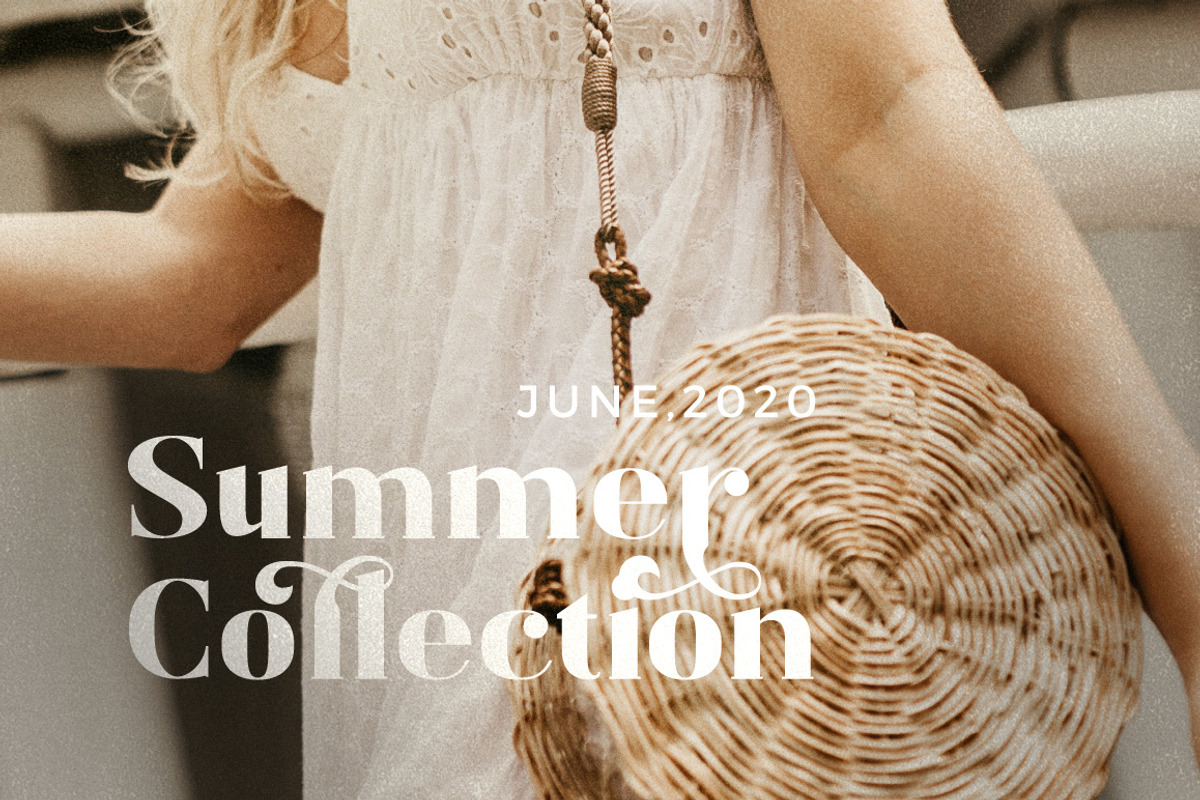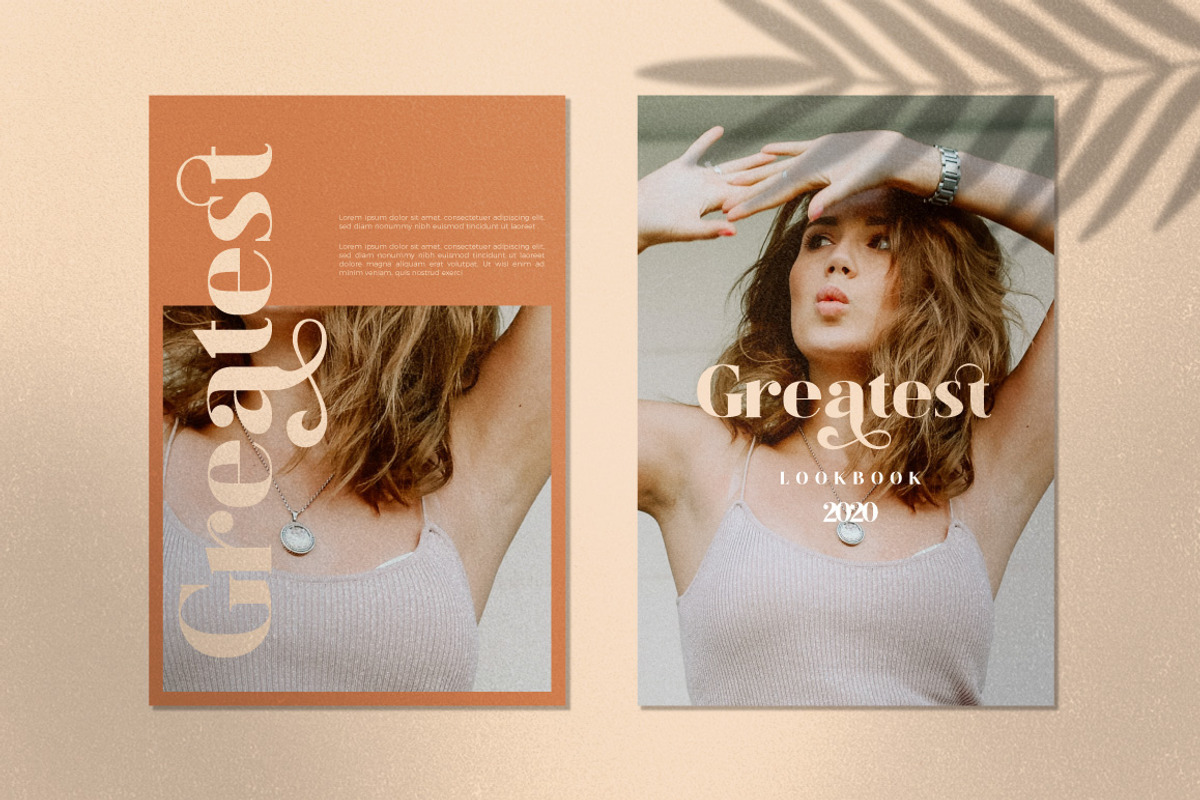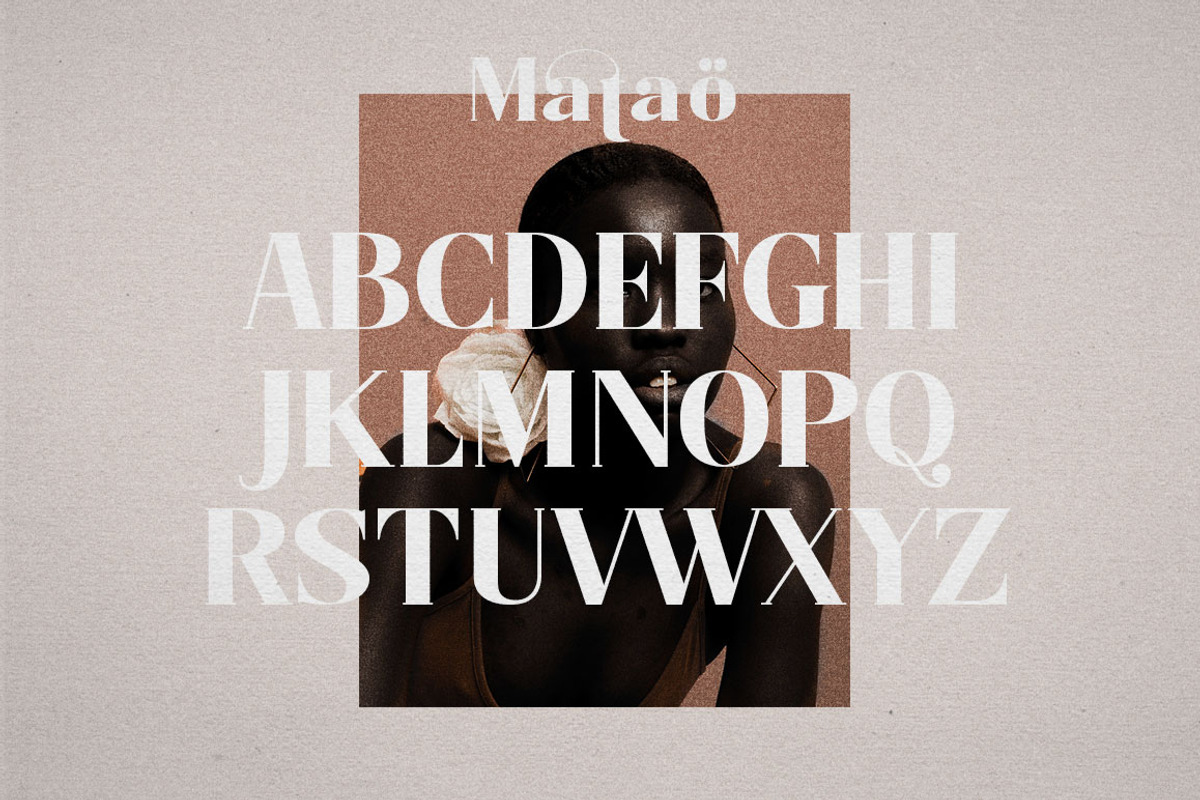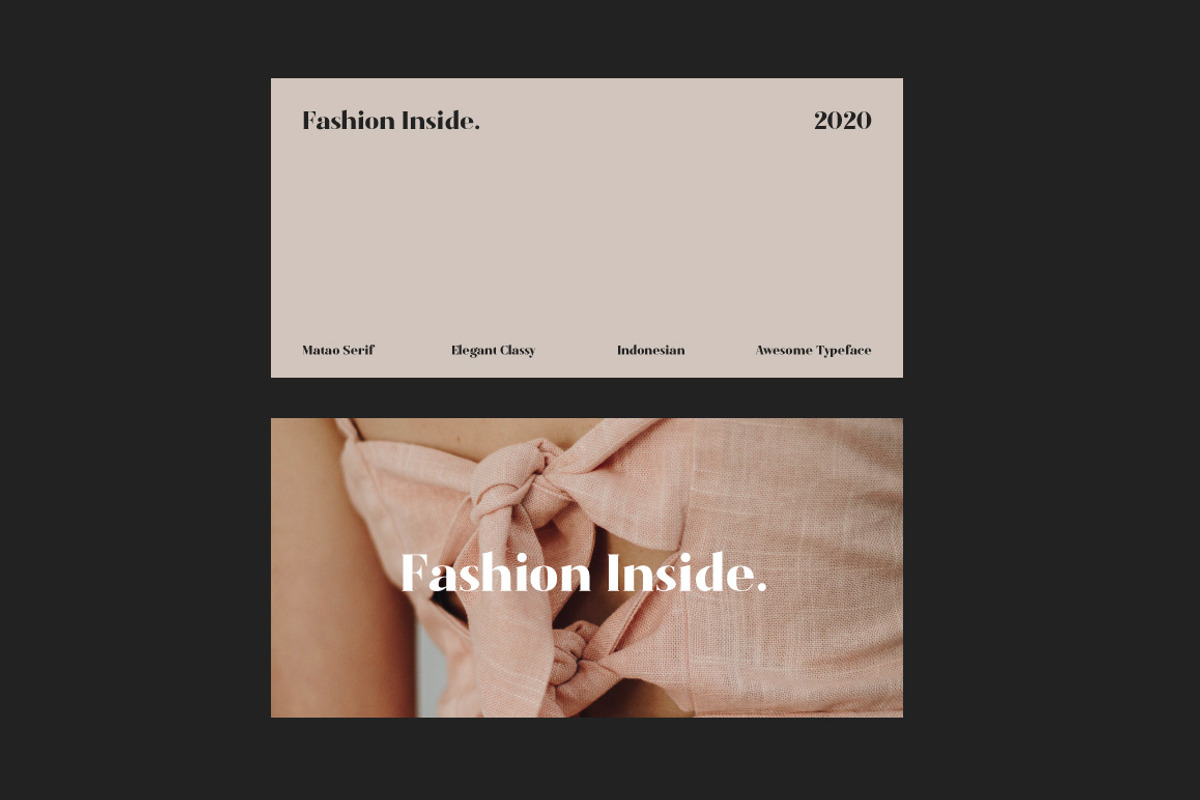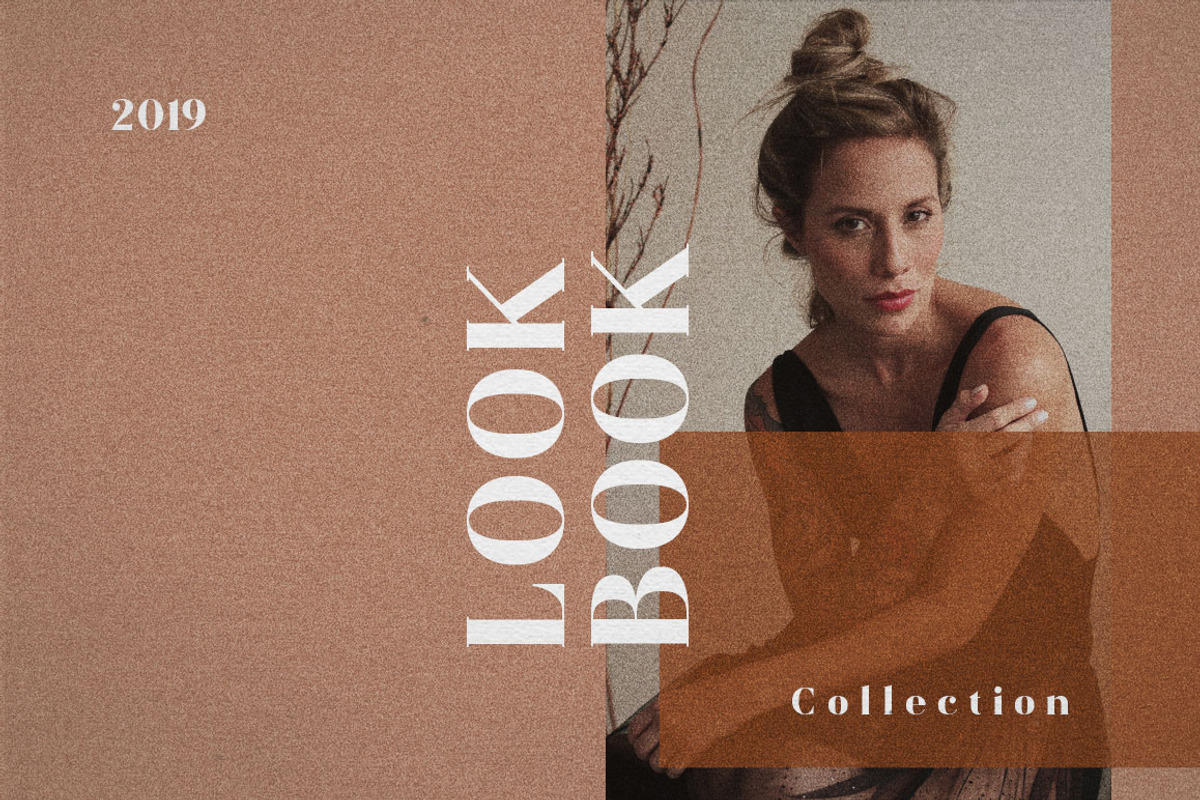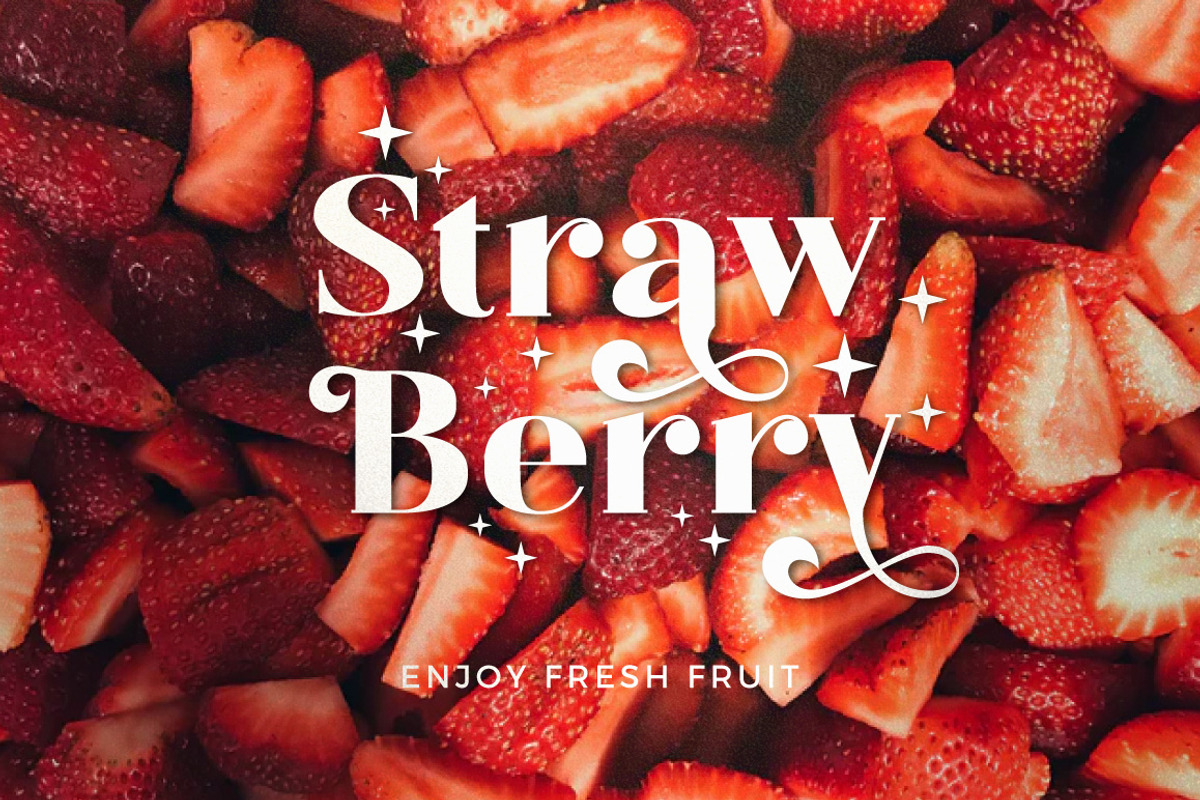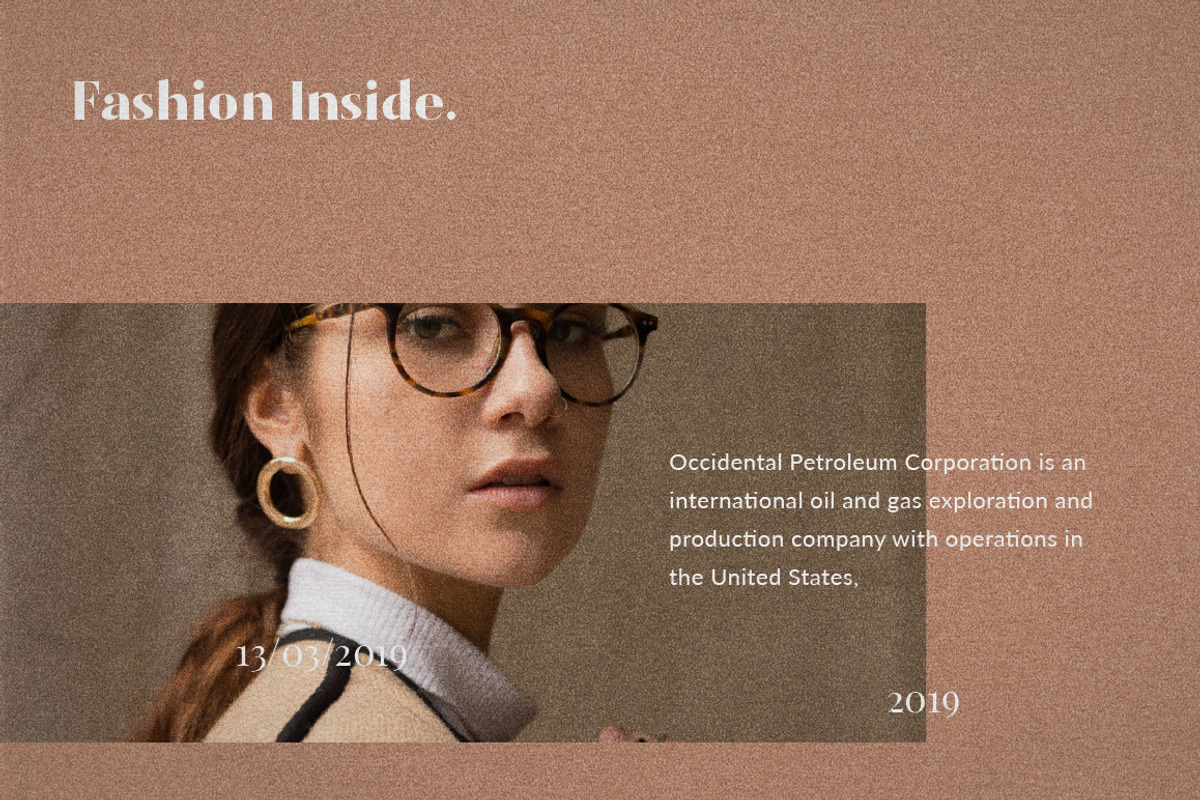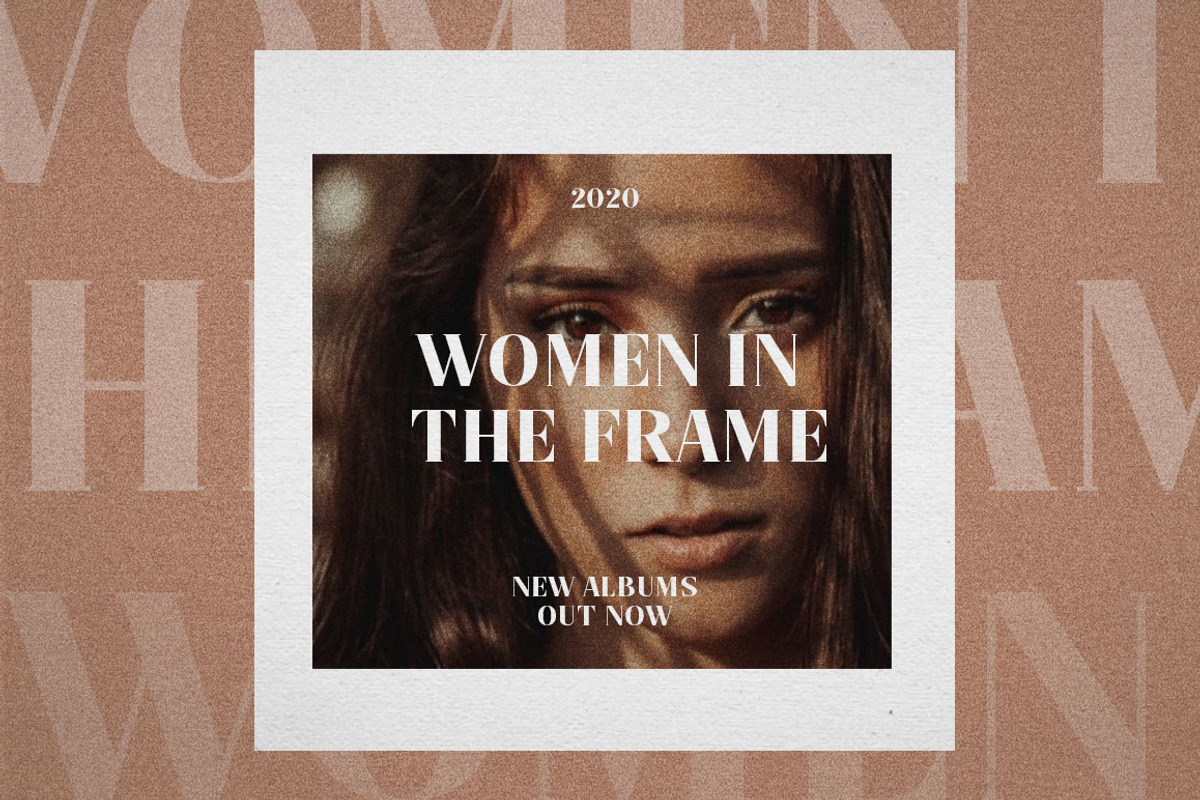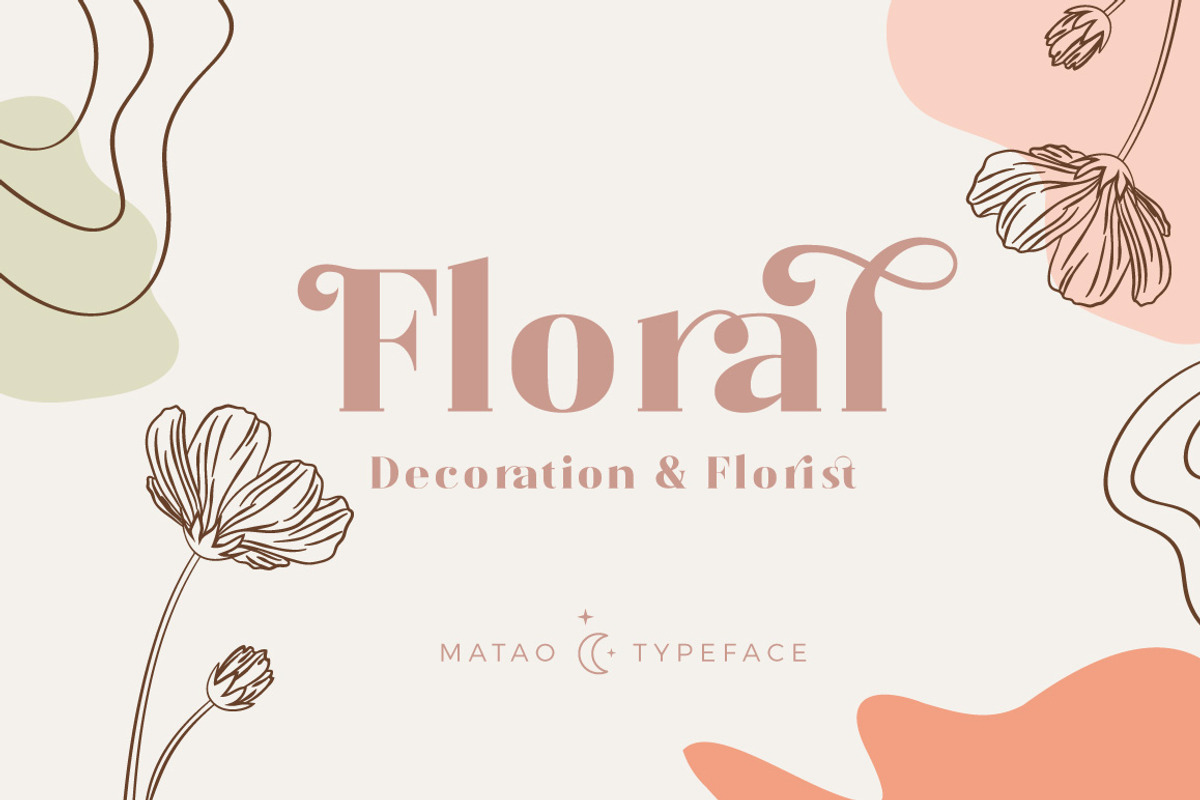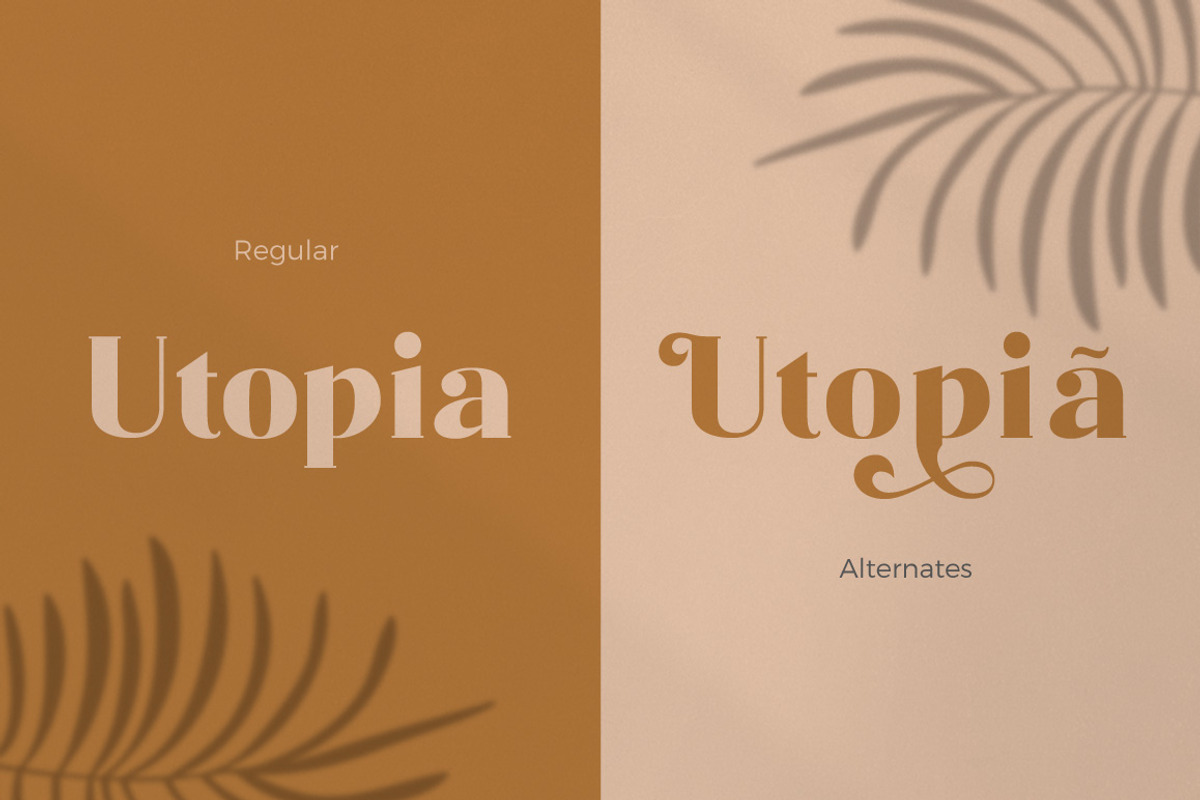
Mataö - Elegance Font Serif
NEW UPDATE JUNE 2020 - More Alternative Character
Mataö - Elegance Font Serif
Mataö is bold, gorgeous headlines and elegant designs with a vintage and classic flair. Mataö contrasting lines and curved terminals give a sleek, elegant look to logos, holiday cards, wedding invitations, quotes, advertisements, and more. Mataö is a versatile typeface that's full of character and one you'll come back to time and again. make your awesome design layout with Mataö.
- Terminal Alternates
- Standard ligatures
- Unique ligatures
- Stylistic sets
- SWASH
- International Symbols include